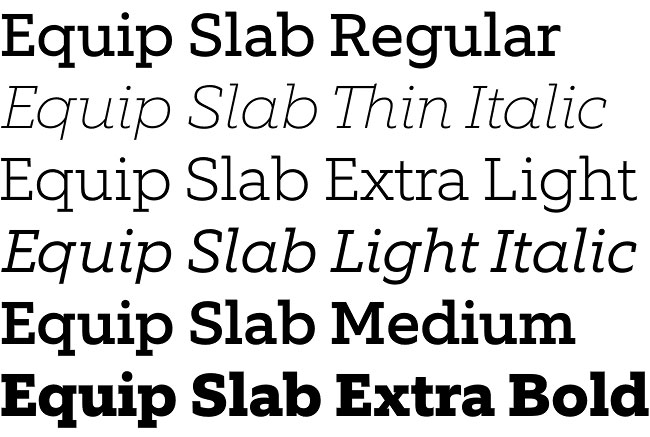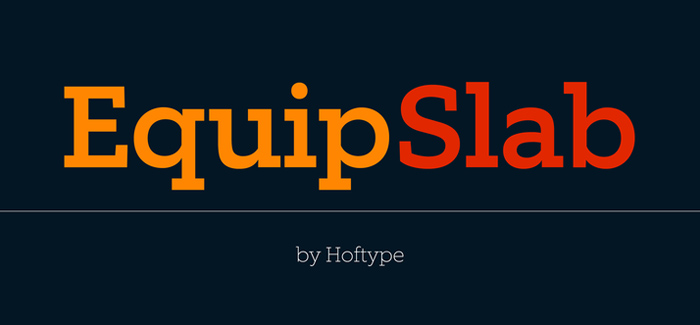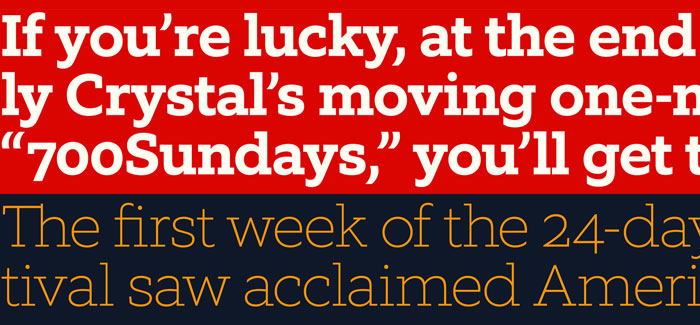
Equip Slab font
After the success of Equip font and Equip Extended font, Hoftype has just released latest addition to the growing family – Equip Slab font. Base on the same skeleton as the rest of the family it was logical to see the slab version very soon. It has same enhanced readability in all sizes which makes it excellent typeface for both screen and print graphics. Additionally you will find large character set of diacritics, alternates, ligatures, numbers, fractions, matching currency symbols etc – all working with opentype-friendly applications. All 8 weights have nice and elegant true italics sold as separate fonts. We highly recommend this family for editorial design, packaging, stationery, t-shirts and web design.
Designers: Dieter Hofrichter
Publisher: Hoftype